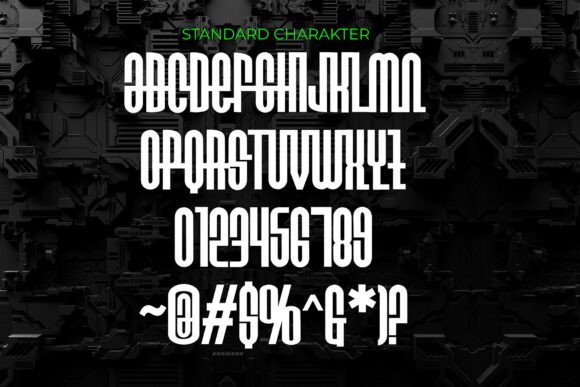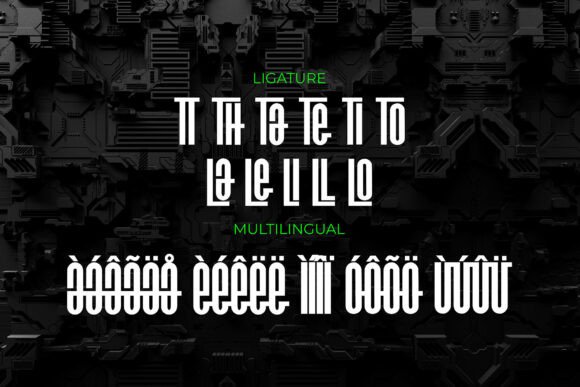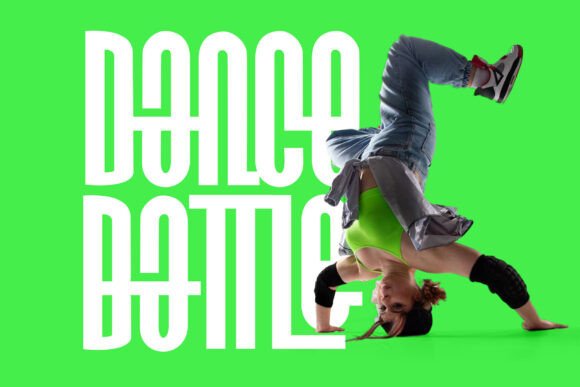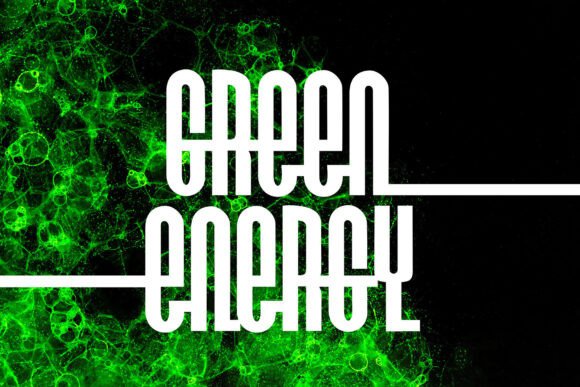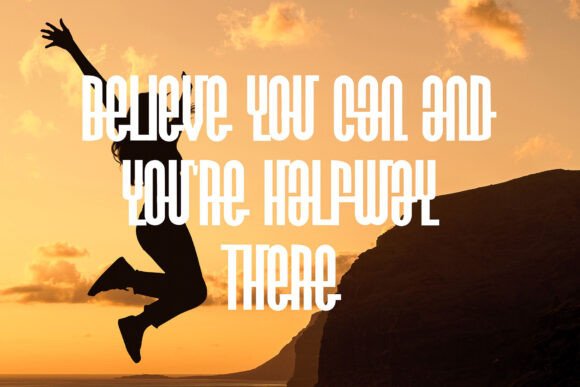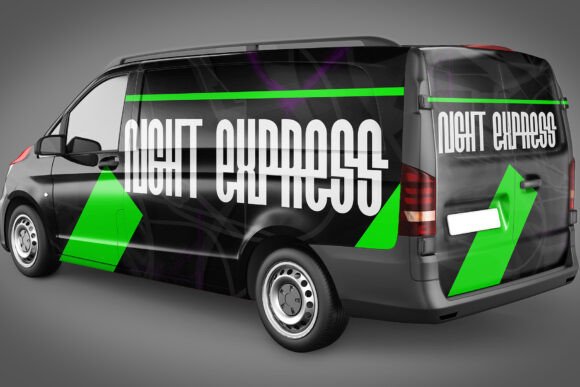
Introduction to Green and Gloom Font
Introducing Green and Gloom, a visually impactful geometric display font that blend contemporary elegance with a brooding allure.
It is an ideal choice for designs requiring a daring yet sophisticated influence Green and Gloom is notably characterized by its elegant precision, featuring clean and angular lines that complement any creative project.
Key Features of Green and Gloom Font